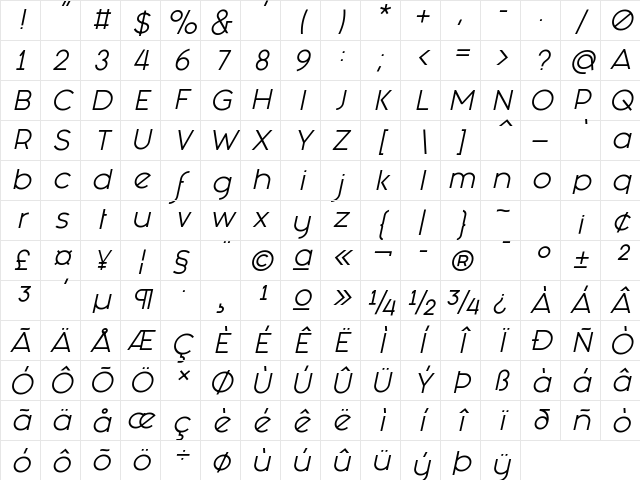
Fashion Fetish Italic Free Font
Fashion Fetish Italic
Foundry: Levi Szekeres
Designer: Levi Szekeres
Design Context for Fashion Fetish
Fashion Fetish is a composed and adaptable typeface that performs quietly and consistently across a wide range of design contexts. The slanted form adds forward momentum and visual energy.